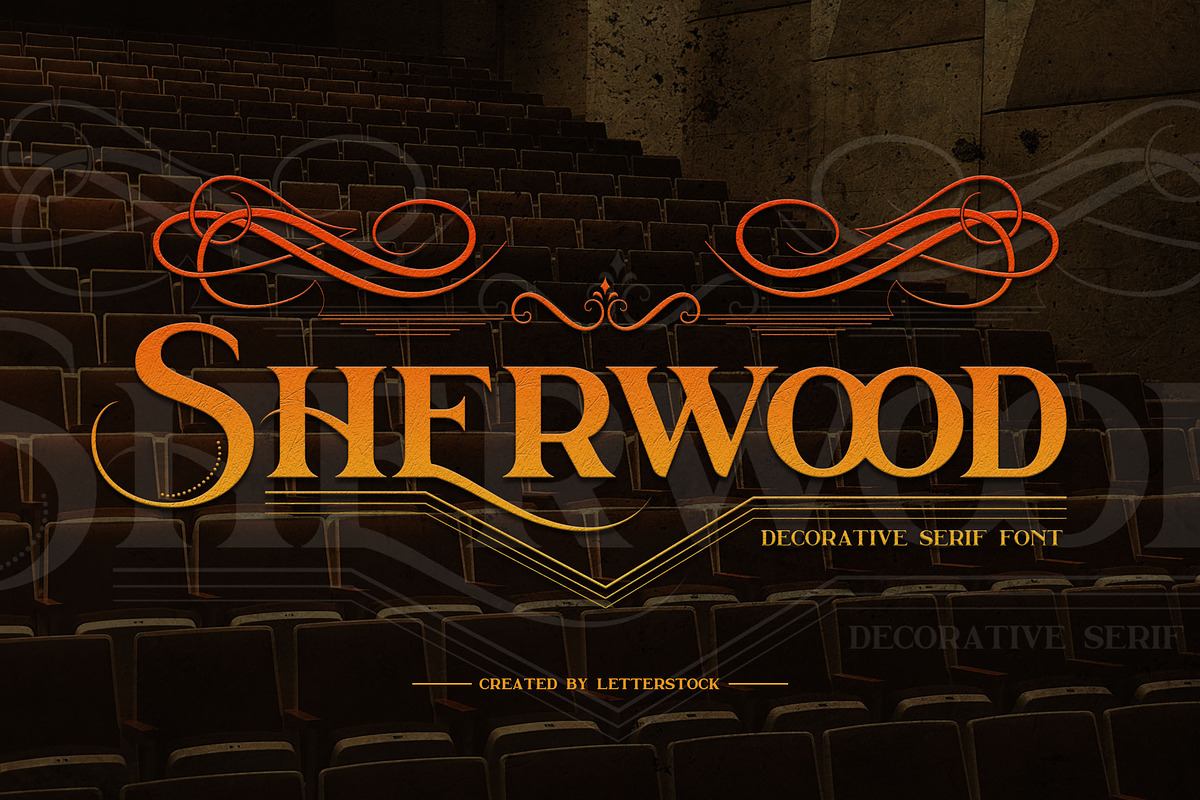
The Sherwood Font Free Download is a bold and versatile typeface with a rustic, handcrafted feel. Perfect for vintage branding, outdoor logos, adventure-themed projects, and rustic packaging, this font brings a natural, organic look to your designs.
With its strong, geometric letterforms and subtle vintage flair, Sherwood works well for both large headlines and smaller text. It includes uppercase and lowercase letters, numbers, punctuation, and multilingual support, ensuring it can be used for a variety of creative applications.